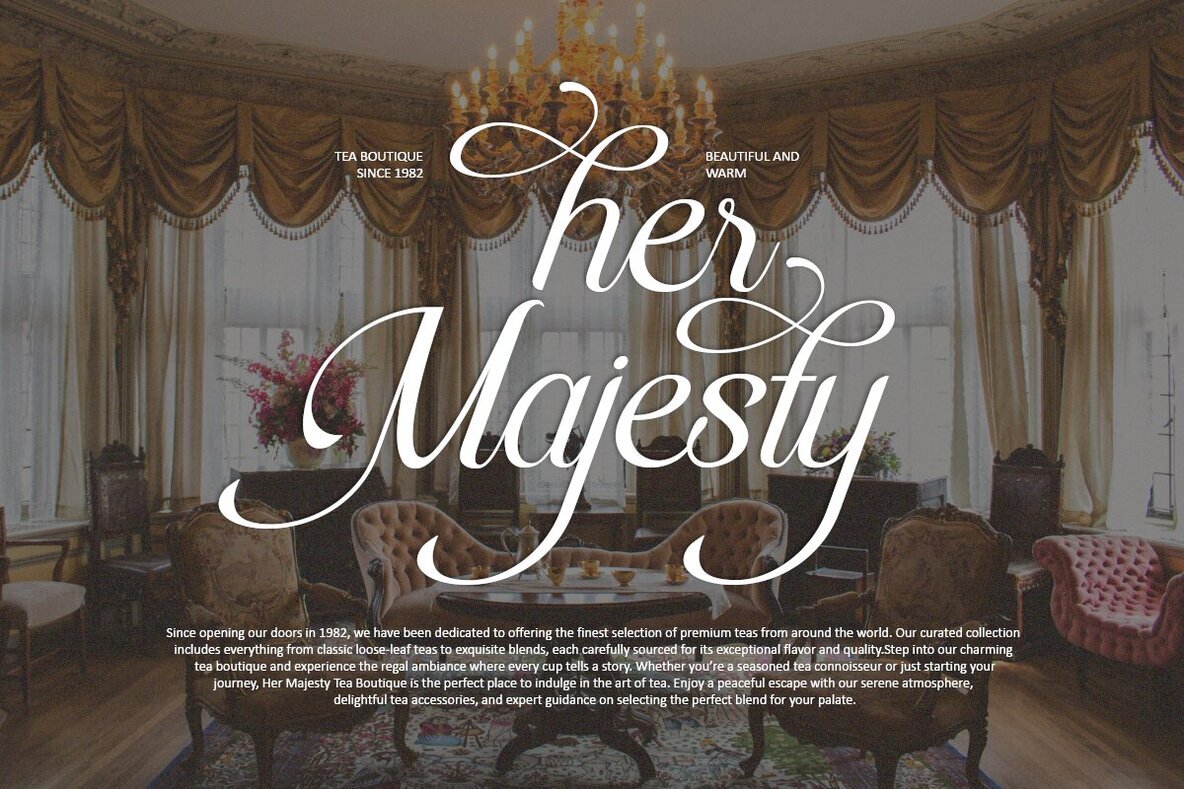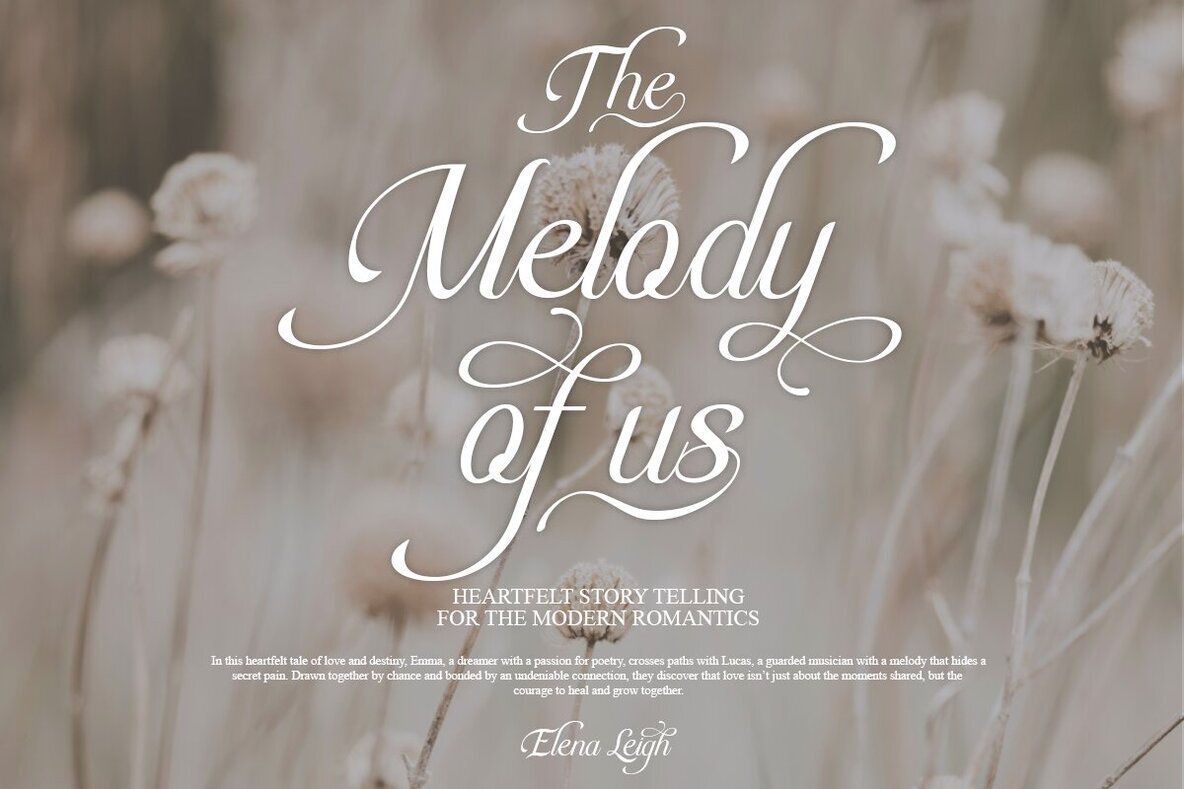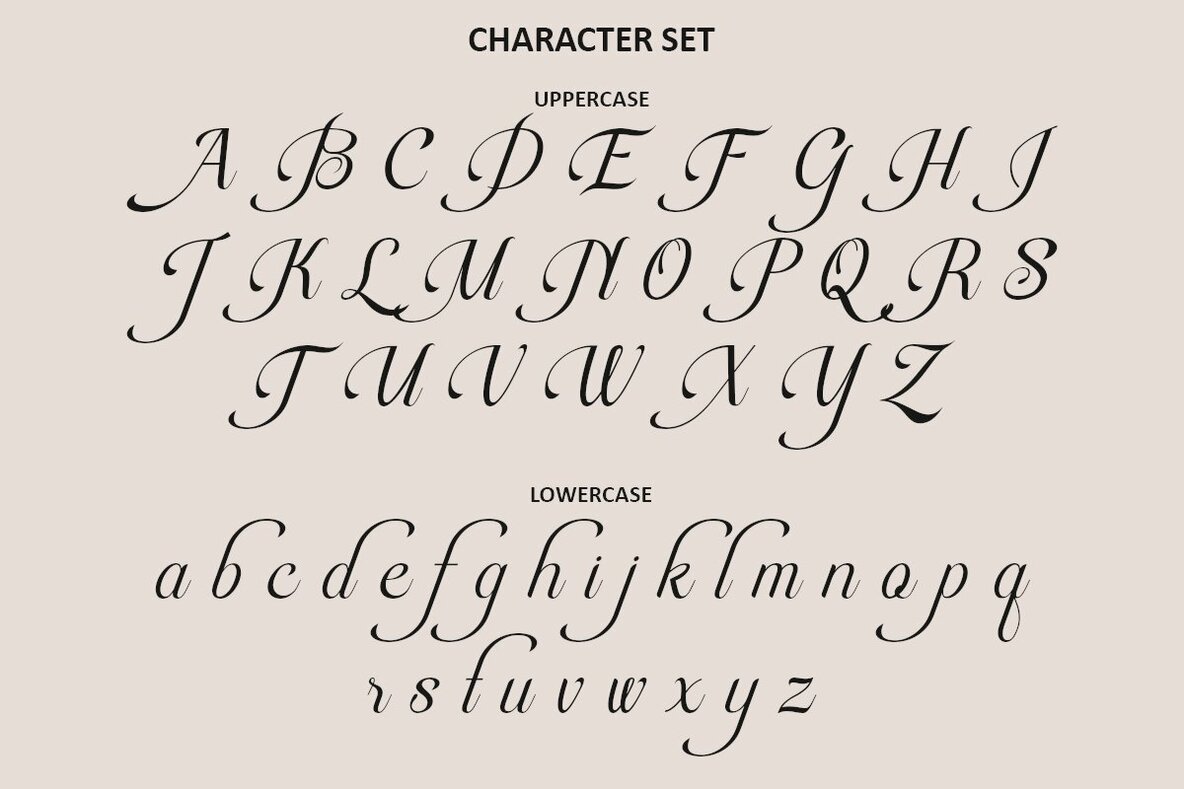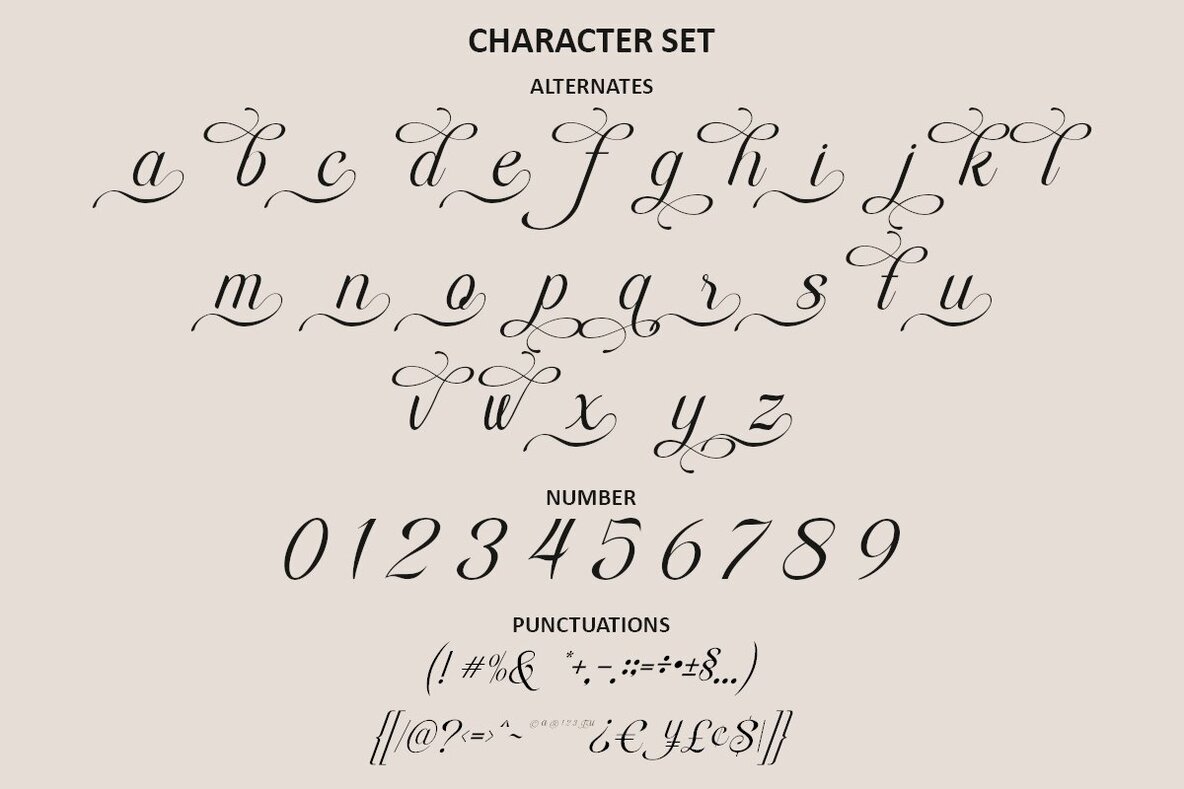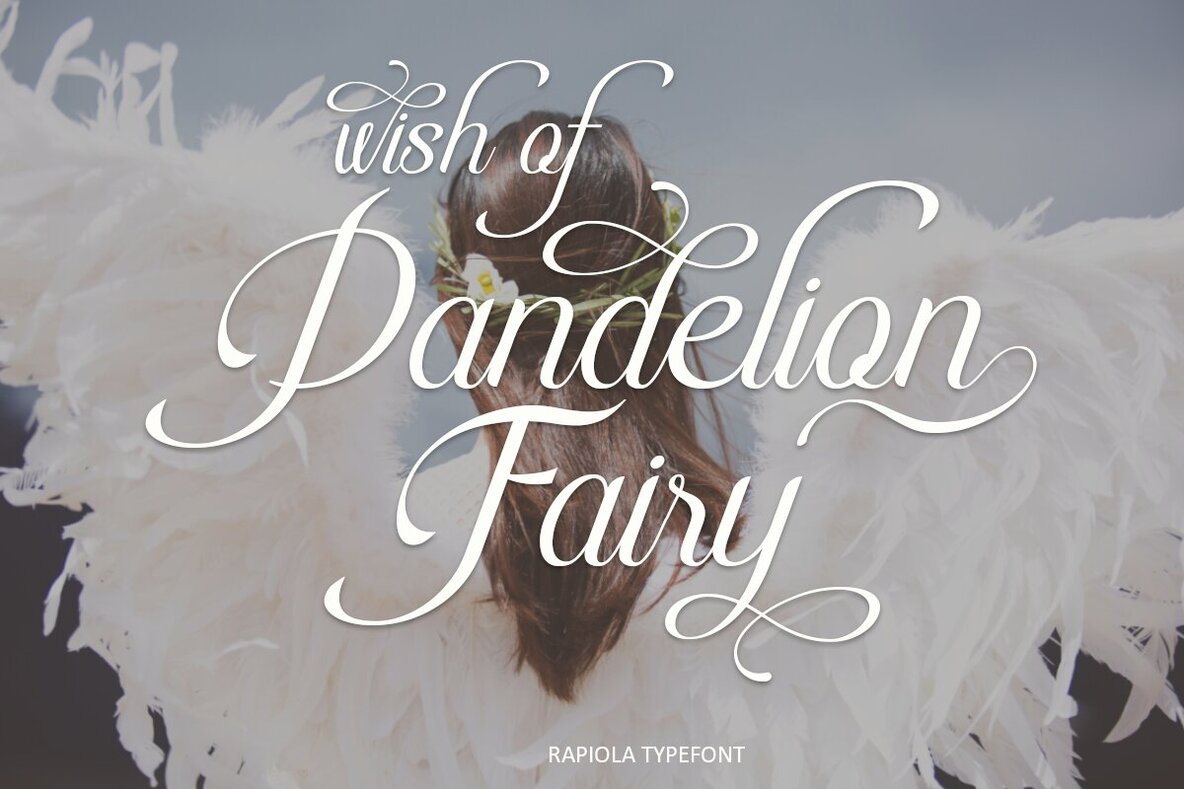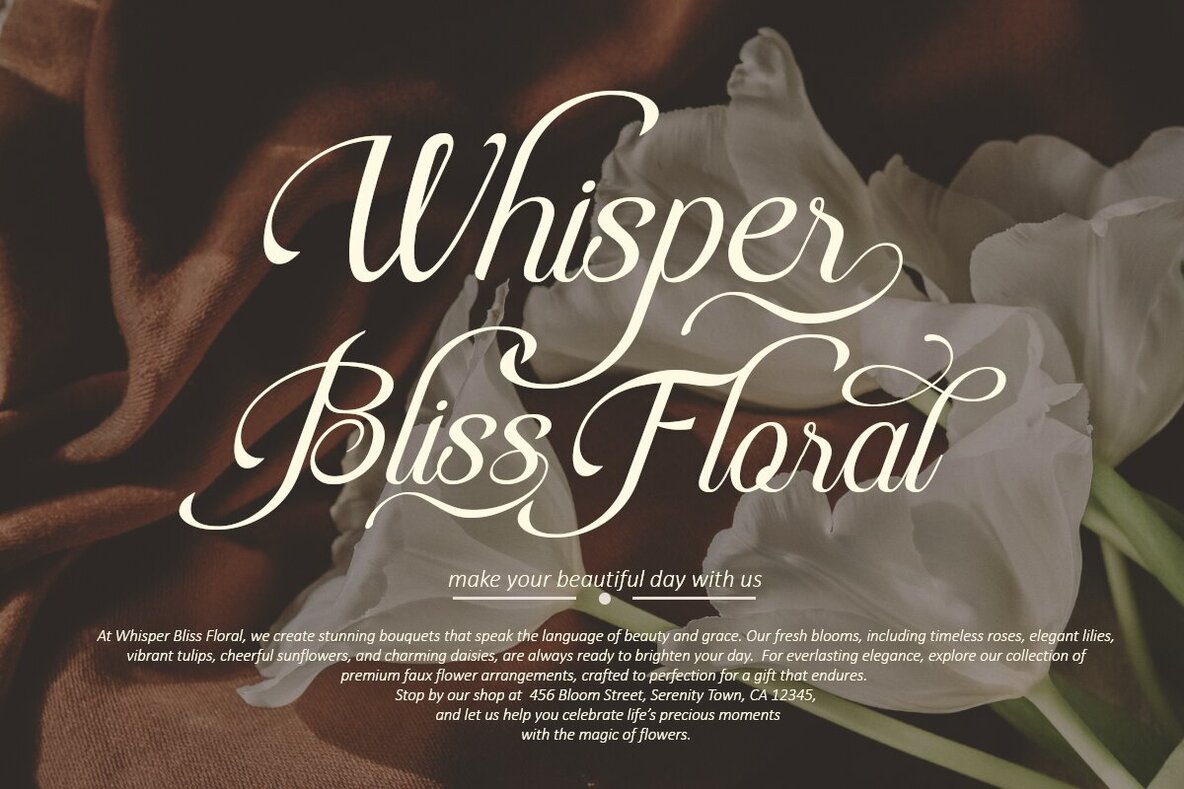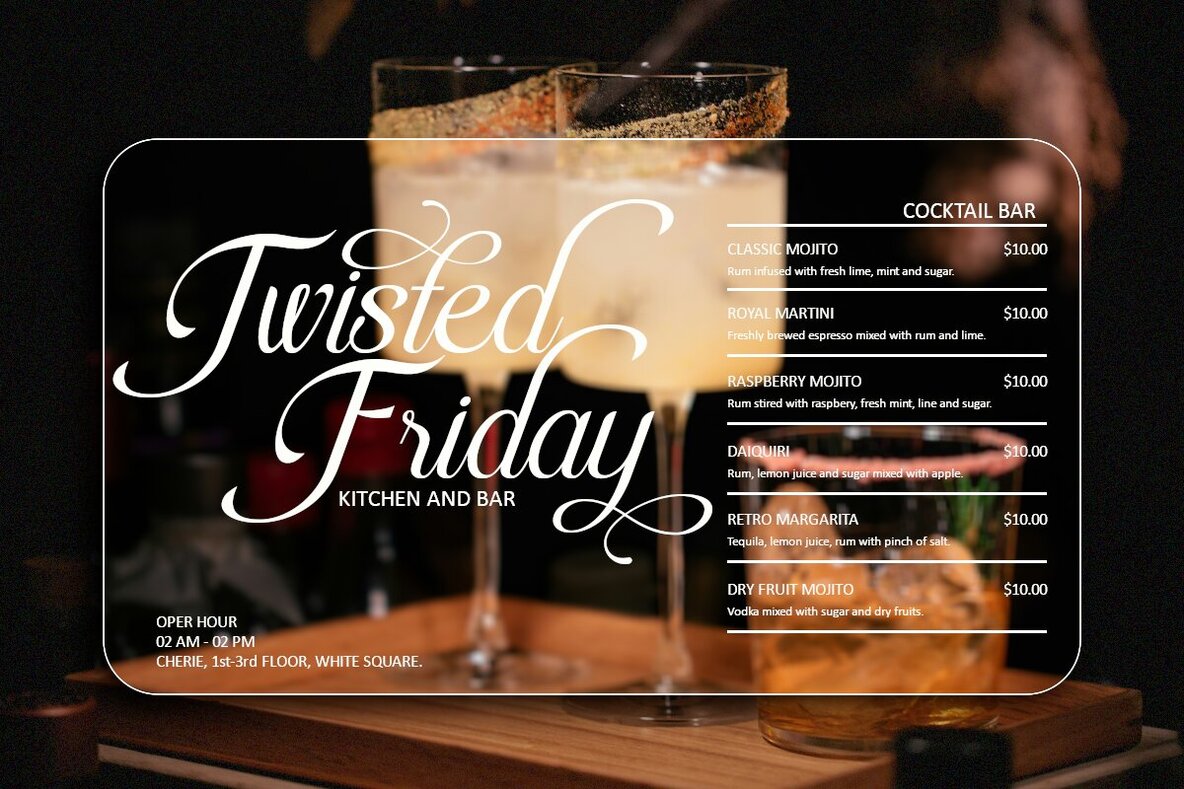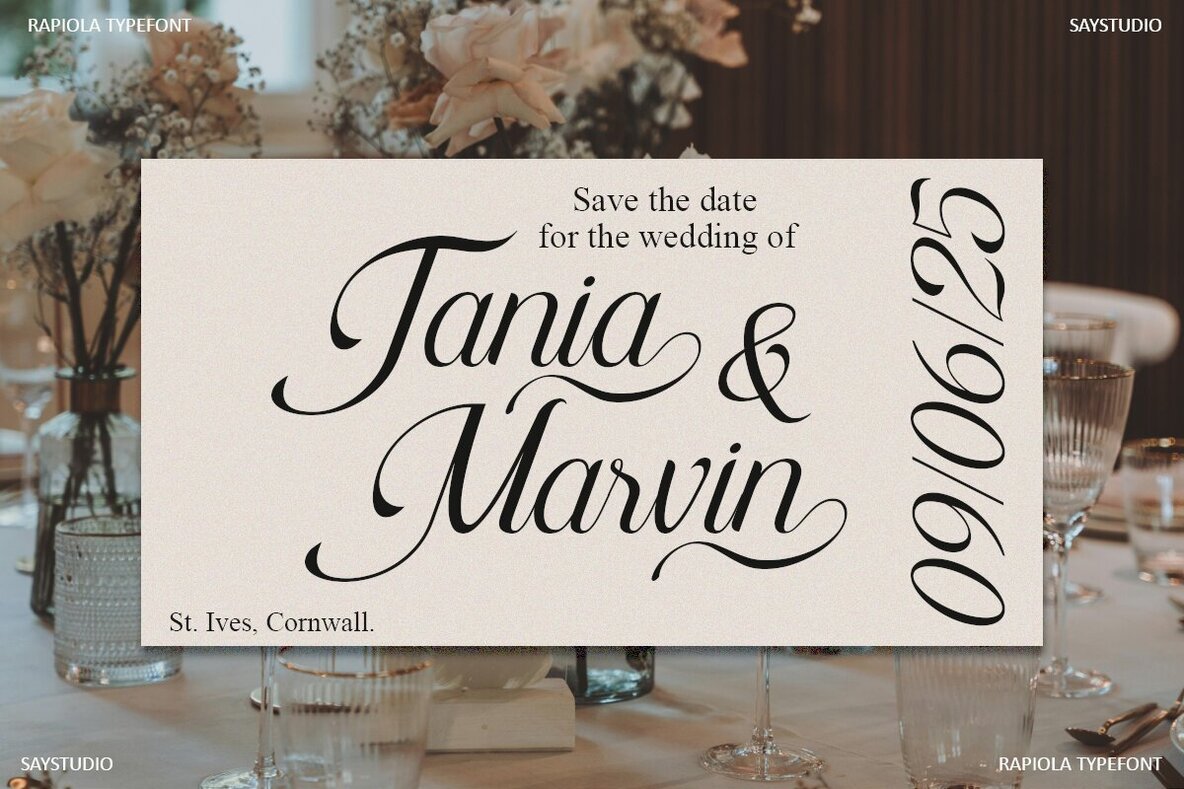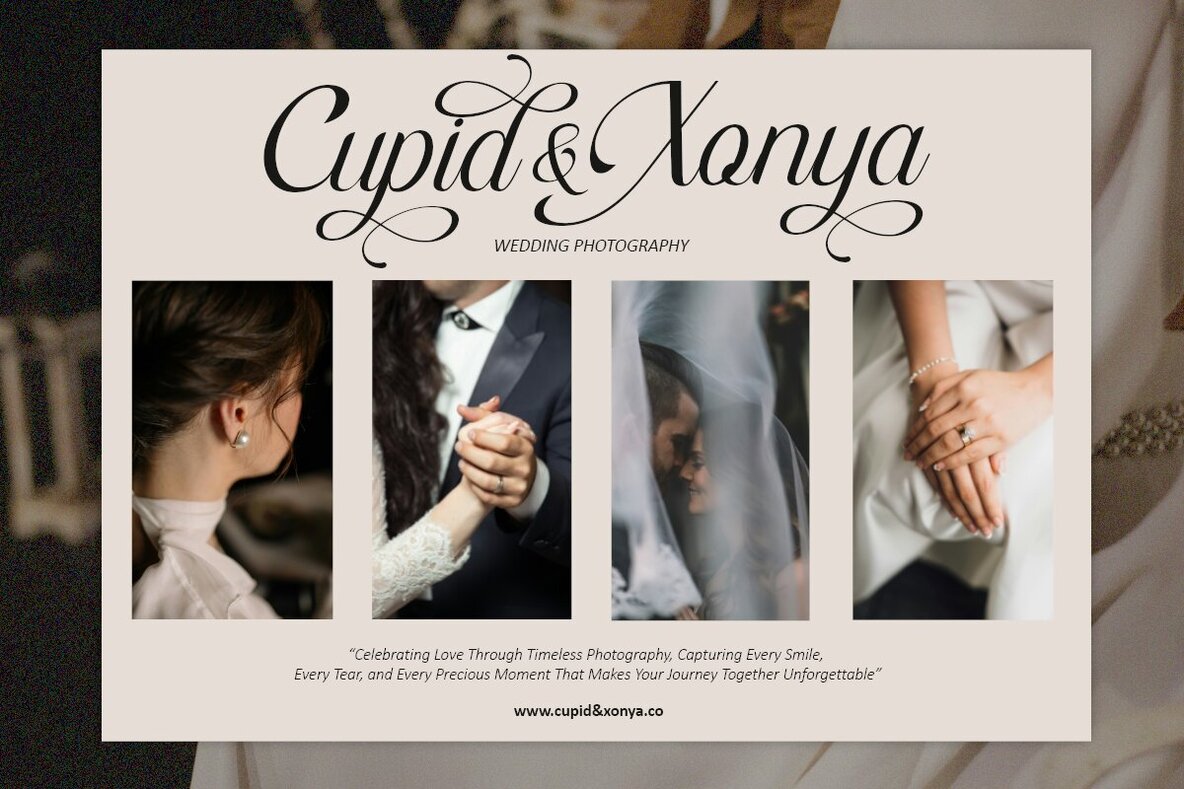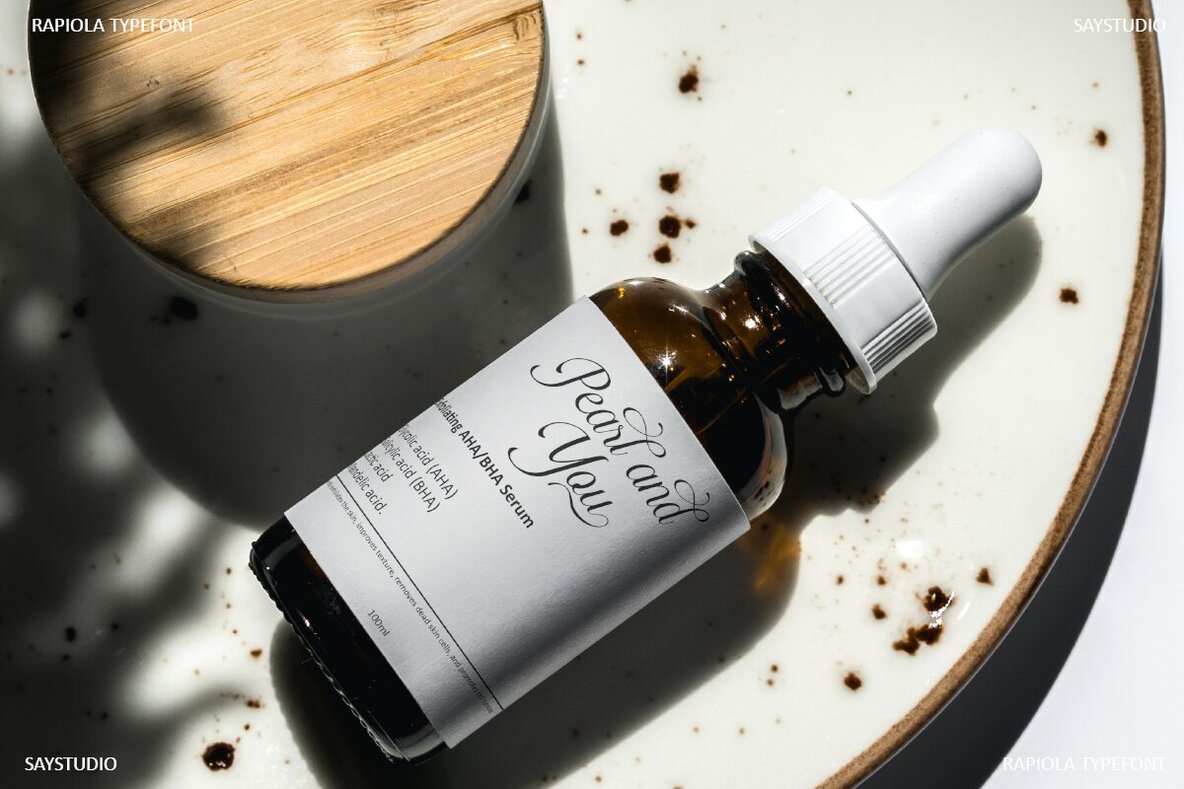
Rapiola Font
Rapiola
Rapiola is an elegant calligraphy script font, ideal for adding a sophisticated touch to logos, wedding invitations, modern websites, and greeting cards. Designed with inspiration from classic calligraphy, Rapiola brings a sense of timeless elegance to any project.
This font includes a full set of standard alphabet and punctuation, as well as an extra set of alternates for lowercase letters that offer a bespoke, custom-branded appearance. Additionally, Rapiola supports multilingual characters and is PUA encoded, allowing you to access swash characters easily without the need for special software. Enhance your creative projects with the versatile and stylish charm of Rapiola.